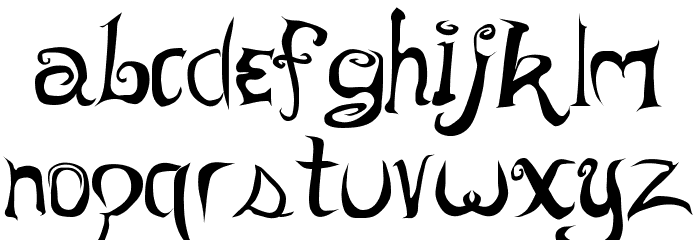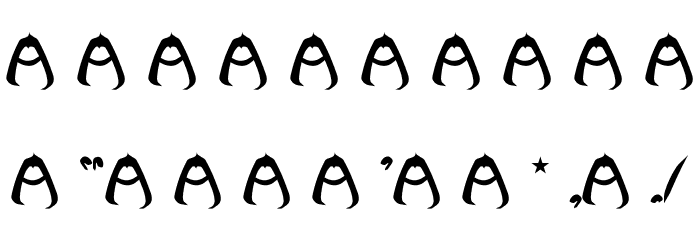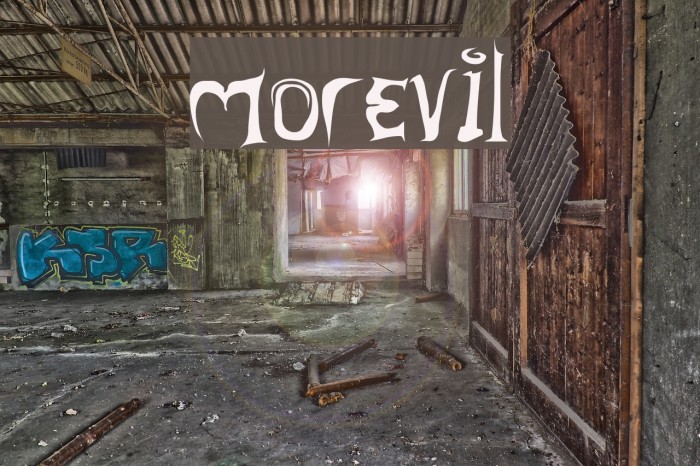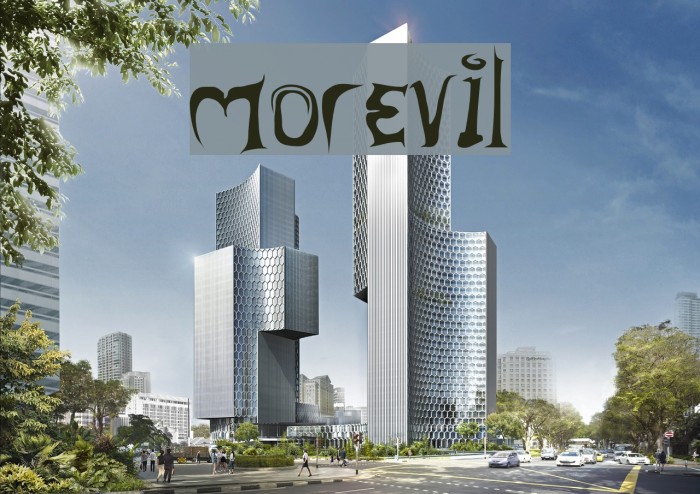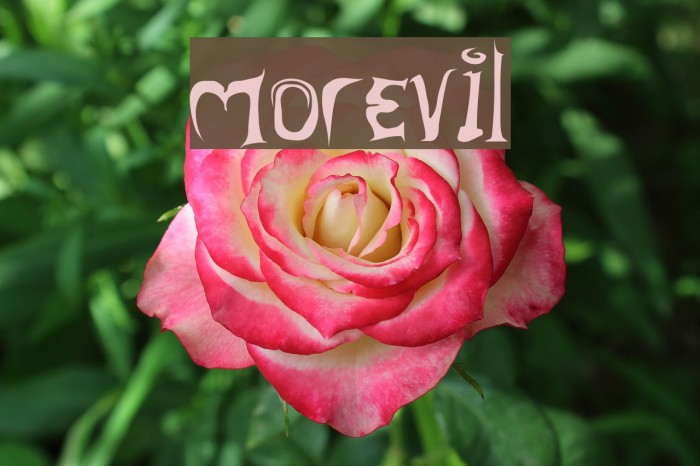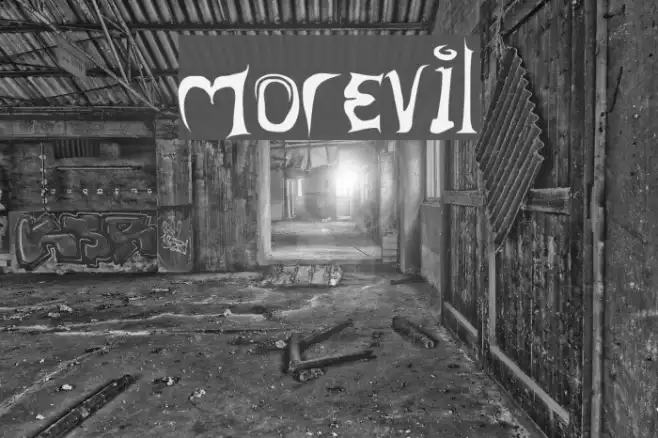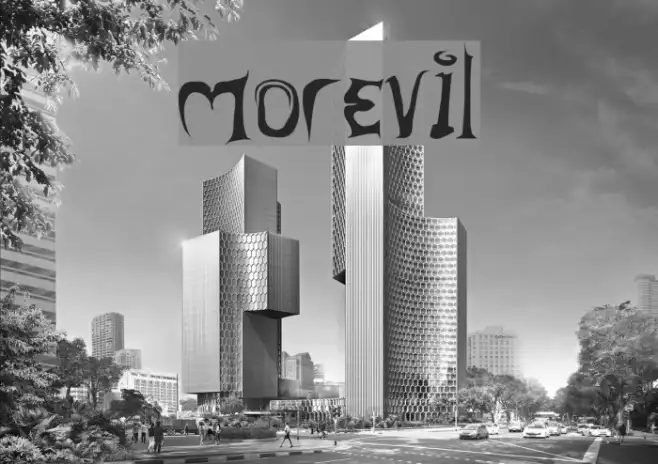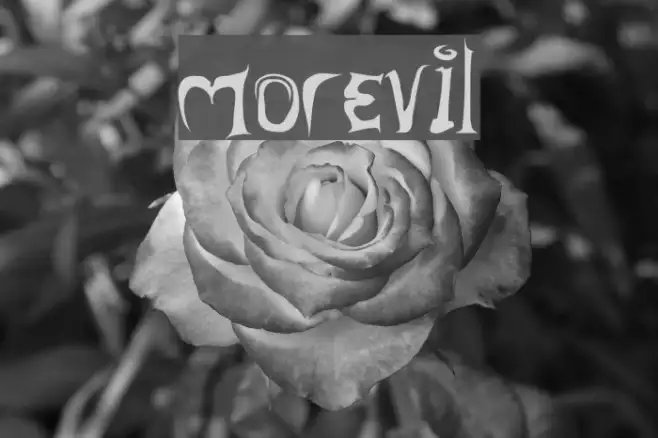
morevil Font
This font features a unique and artistic design with a whimsical and slightly gothic flair. The characters are characterized by their playful curves and unexpected twists, giving them a dynamic and lively appearance. The uppercase letters exhibit a bold presence with intricate detailing, while the lowercase letters maintain a consistent style with a slightly more subdued expression. The numbers and special characters follow the same artistic theme, ensuring a cohesive look throughout. This font's distinctive style makes it stand out, offering a creative and imaginative touch to any project.
A whimsical and artistic font with a gothic flair and playful curves.
- Proposed Projects: Ideal for fantasy-themed designs, Halloween invitations, creative posters, and unique branding projects.
- Use Case: Logos, Posters, Invitations